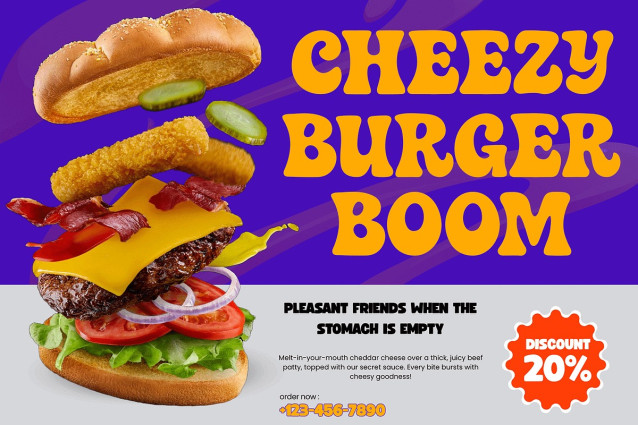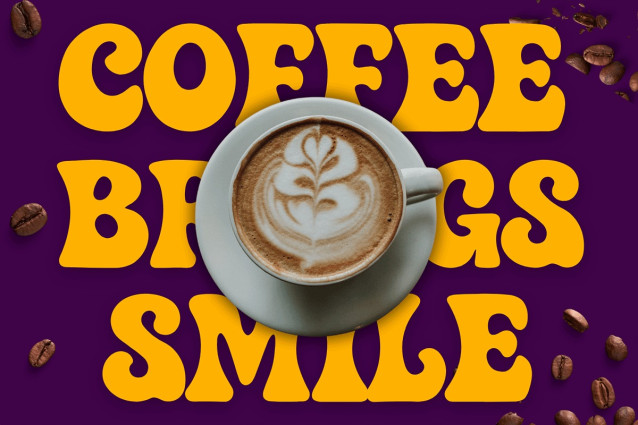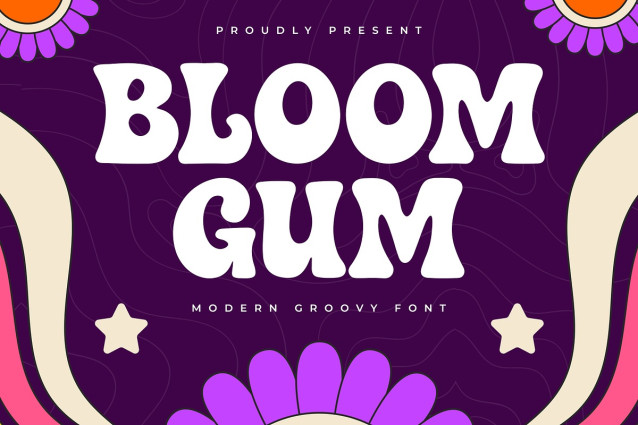
Bloom Gum Font
Bloom Gum Font is a modern groovy font bursting with playful energy and retro vibes. With its chunky curves, bubbly shapes, and joyful rhythm, this typeface adds a delightful flair to any creative project. It’s bold, funky, and full of personality perfect for designs that want to stand out with a cheerful, feel-good style.